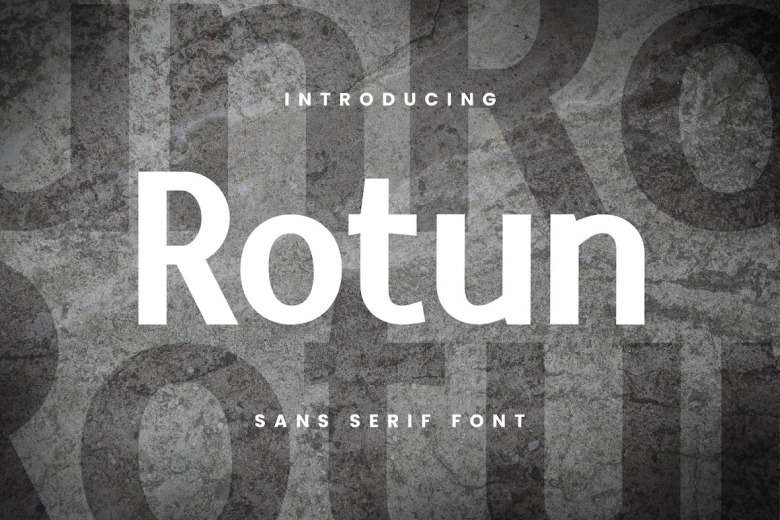
Rotun Font
Rotun is a san-serif style font, complete with elegance, smooth curves and beautiful ligatures clarity that makes your work look true and attractive. A font that is very versatile, which perfectly works in large and small sizes. With your project using this font will make it more beautiful and have a high artistic purpose. This font is perfect for all your projects such as invitations, magazine, photography, branding, logos, card, product packaging, mugs, quotes, posters, labels, signatures, etc. etc.
a font that is perfect for all business sectors including personal projects, studio, corporate, creative agency, industrial, company etc.
Rotun Sans Serif Font